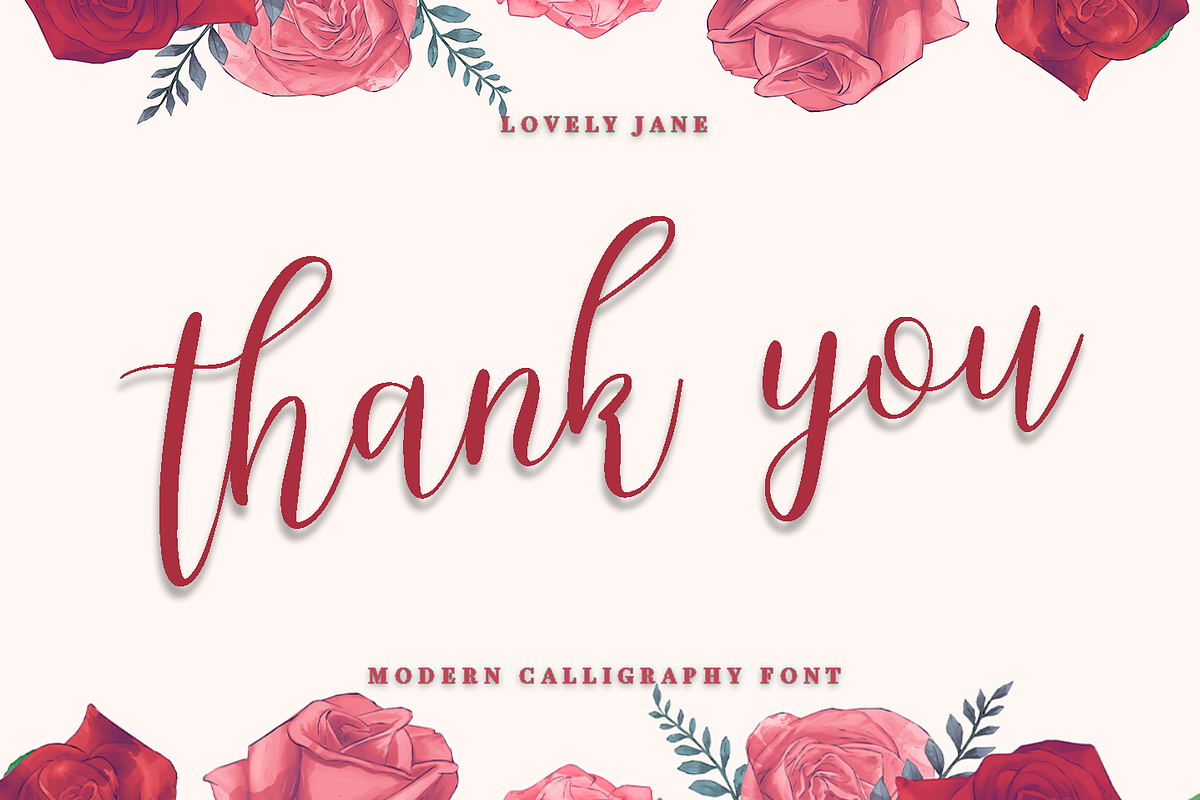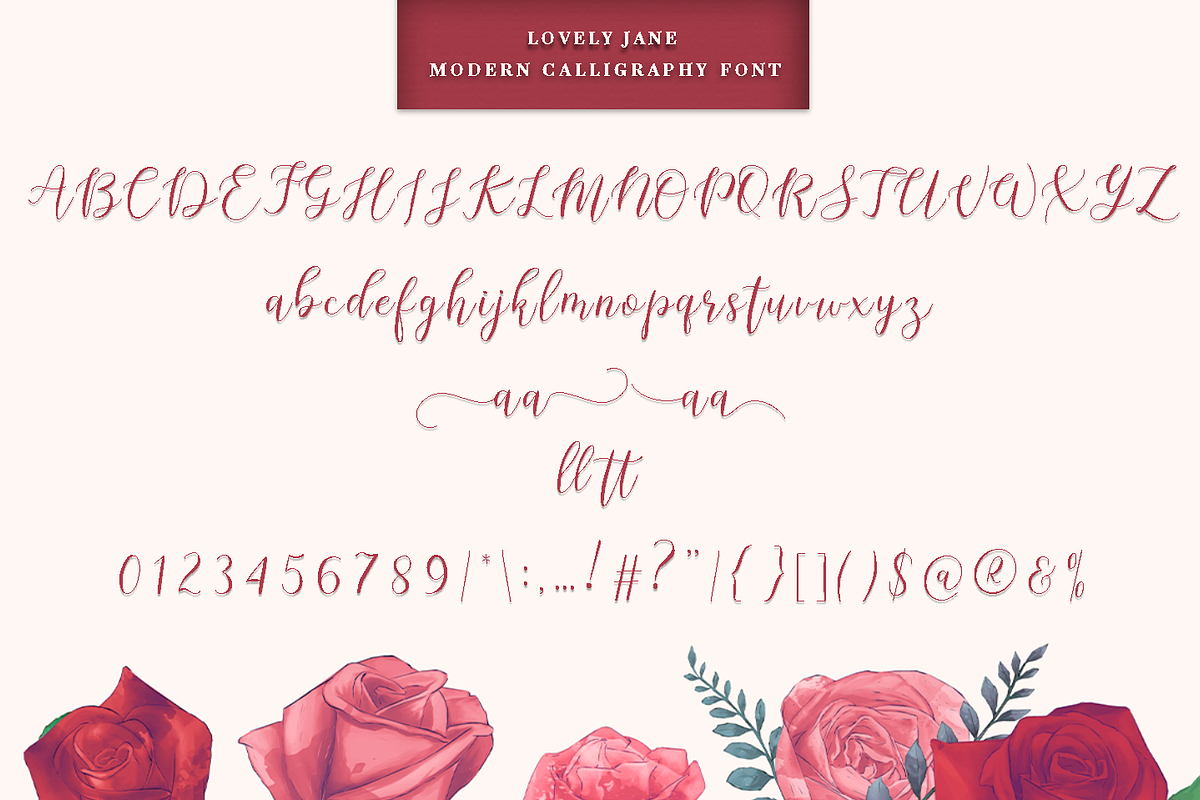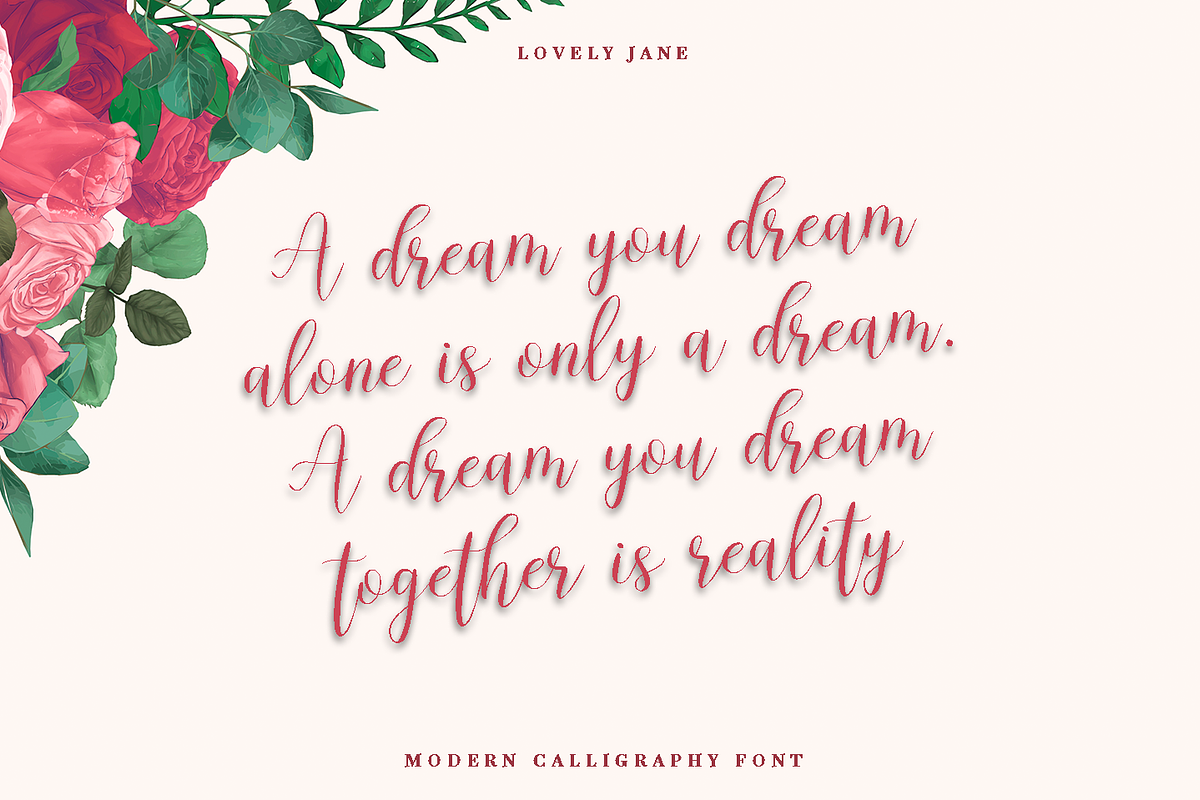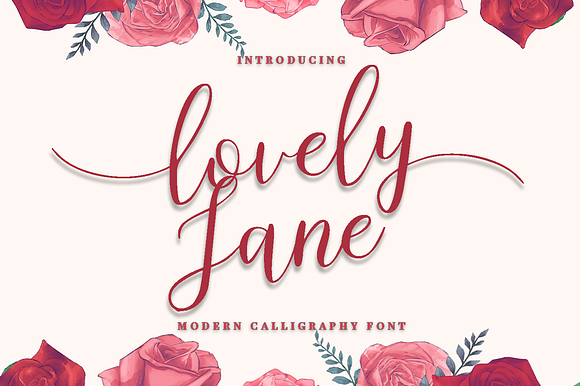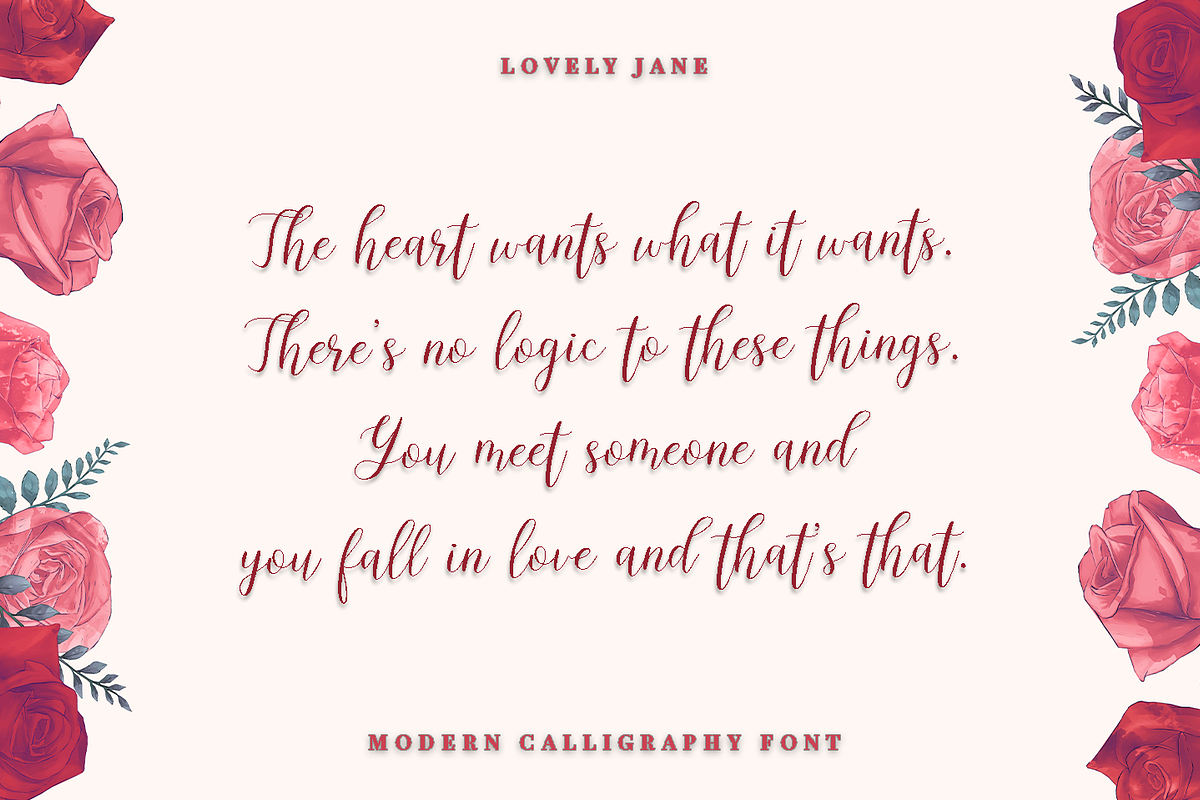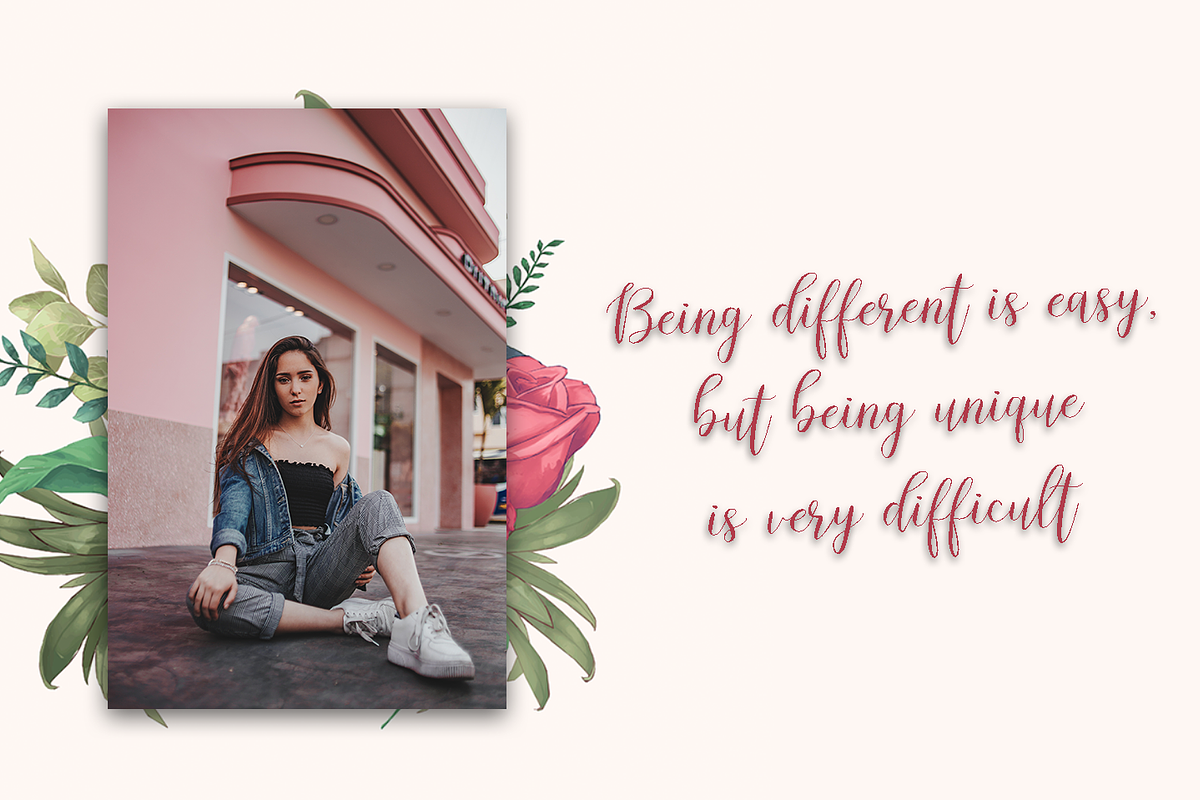
lovely Jane||Modern calligraphy font
lovely Jane- a new fresh handmade calligraphy font.
Very suitable for greeting cards, branding materials, business cards, quotes, posters, and more!This font are perfect for wedding postcard. Or you can create perfect and unique design of your logo, blog, stationery, marketing, magazines and more :)
Ligatures (ll tt) ,Alternates.
- INCLUDED Ligatures (ll tt) ,Alternates.